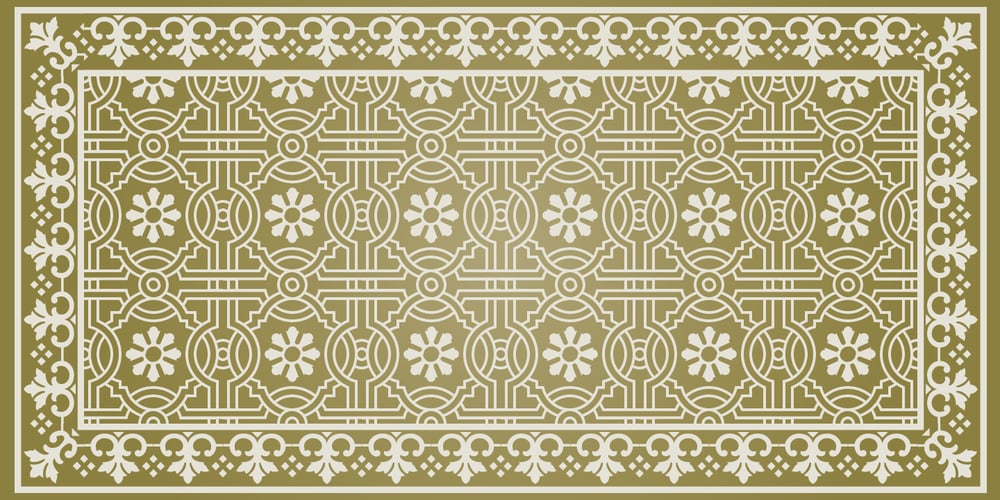
Sopi Font Family was designed by Pablo Ugerman and published by Tipo. Sopi contains 1 styles and family package options. Sopi is a typography of ornaments, borders and combined frames. It was inspired by the design of limestone tile floors, located in different places in Buenos Aires. All characters have the same measure, which enables the possibility of any desired combination. In the case of edges or combined frames, the typography was programmed in a way that is possible to generate textures with 2 or more colors, attempting to rescue the colorful designs that were original thought in the limetone tile floor.